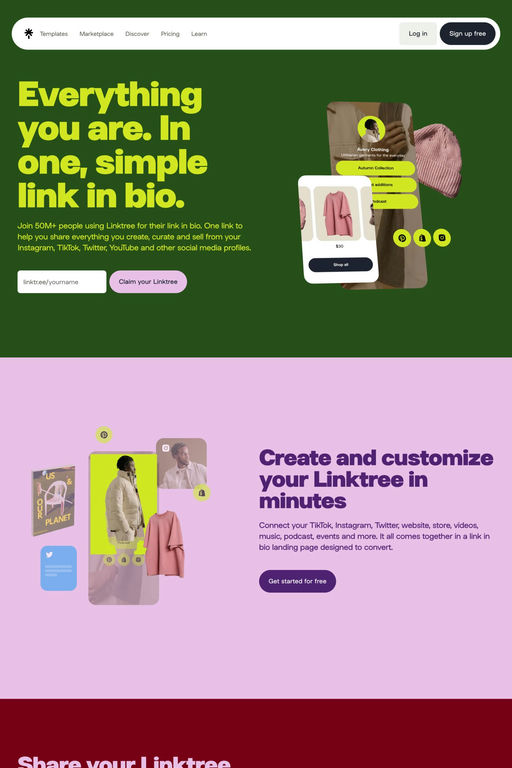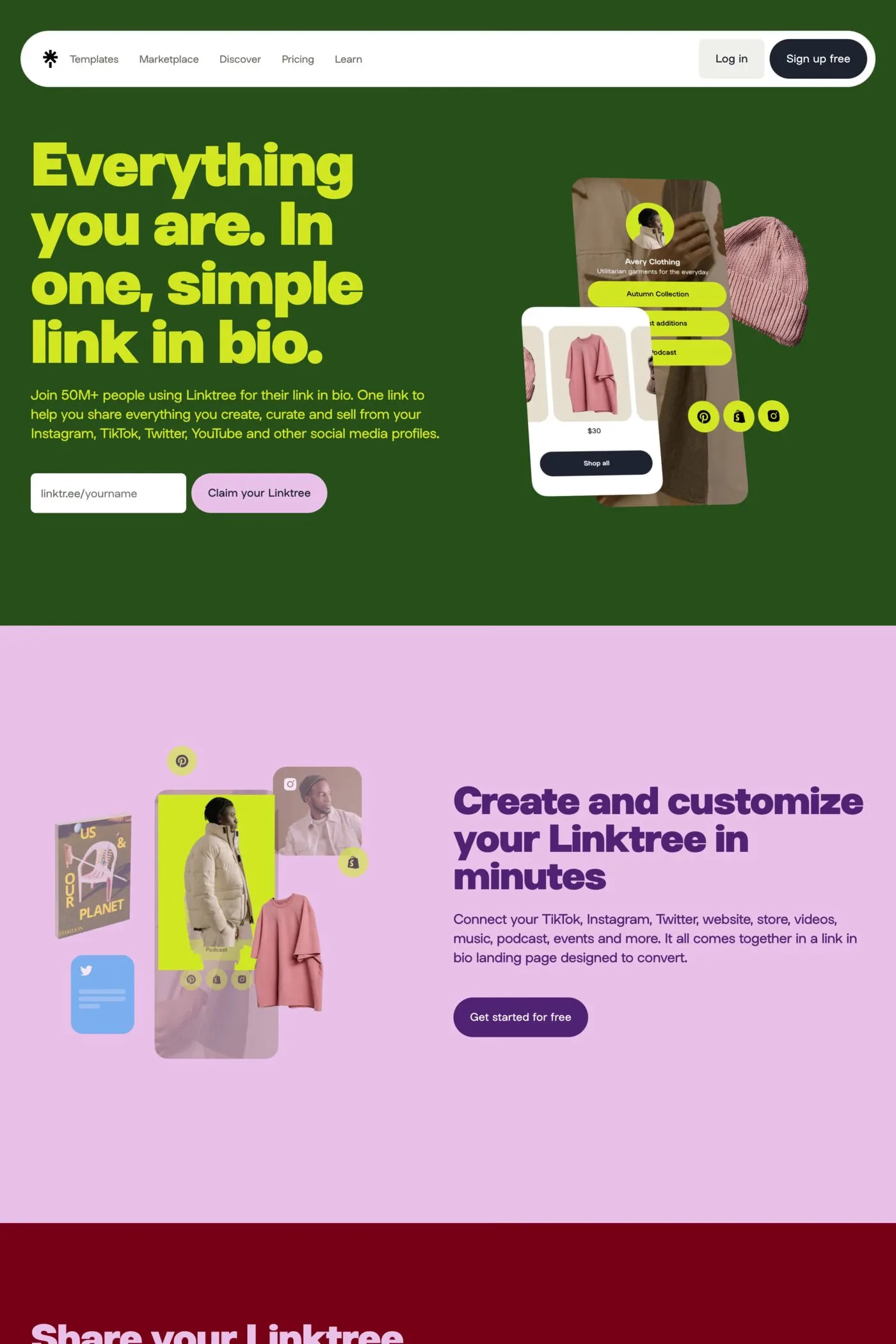
Link Sans is the custom typeface Linktree introduced in 2022, designed by the Melbourne foundry ATS Type under Dalton Bruyns. It was built to keep the same character across Latin, Chinese, Japanese, Cyrillic and Devanagari.